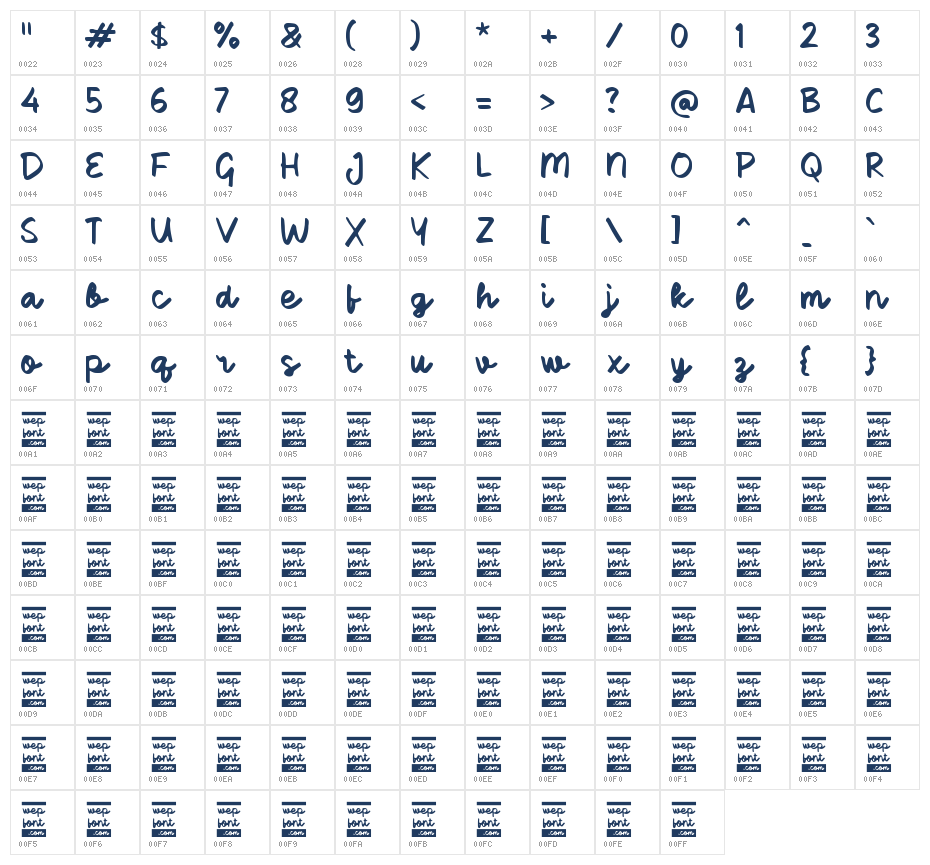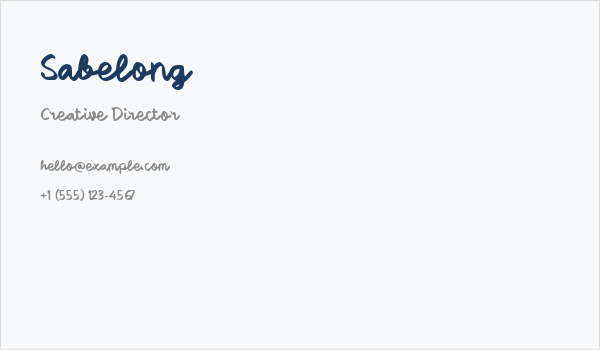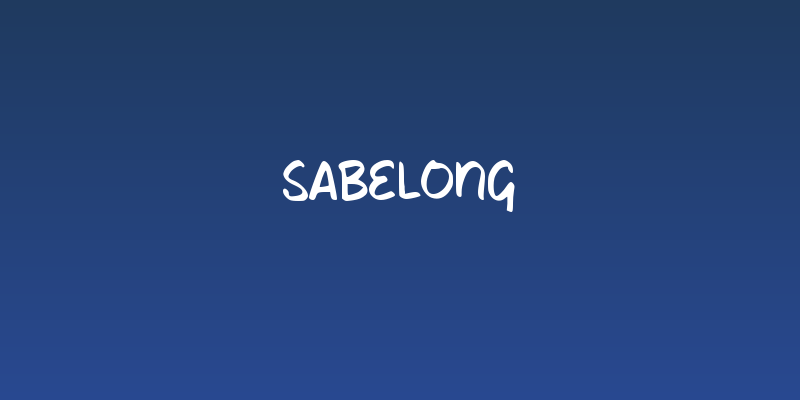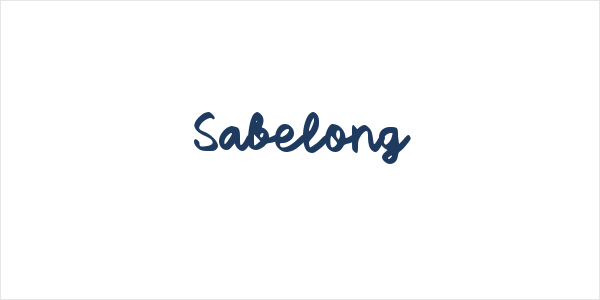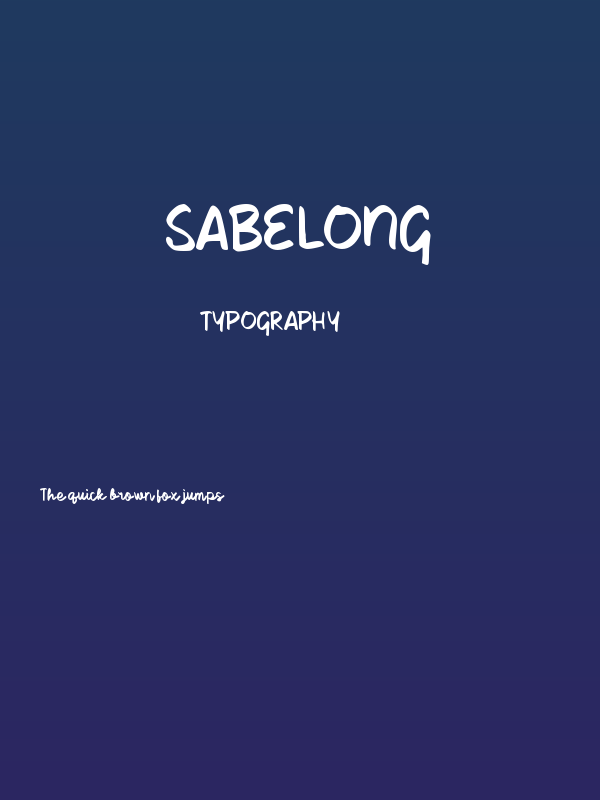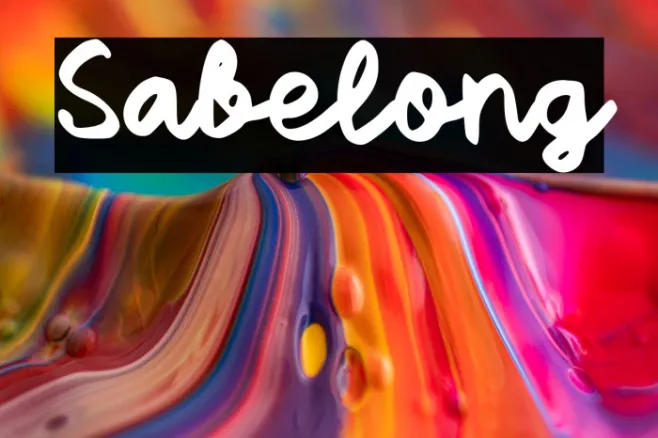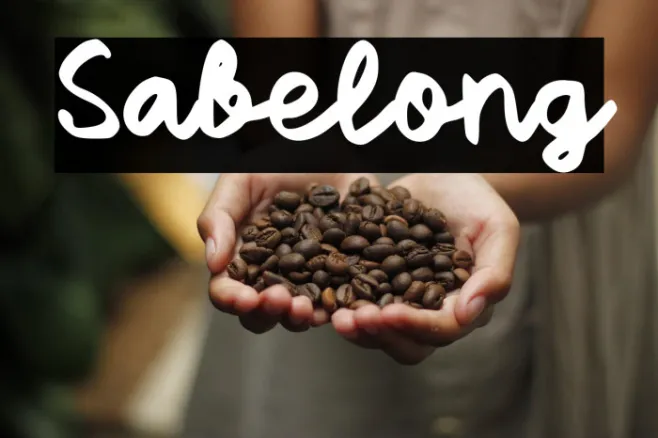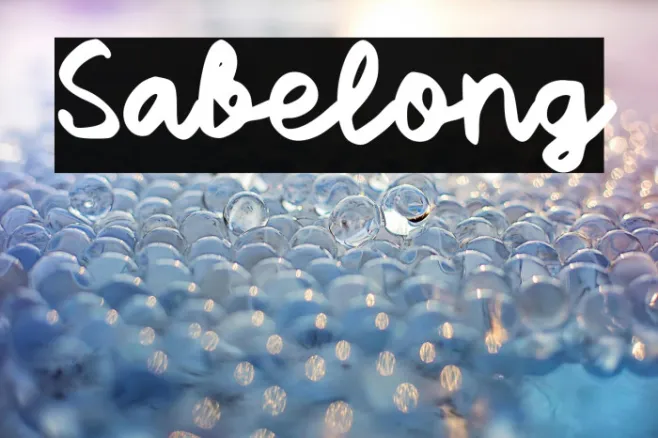
Sabelong Font
Sabelong Description
A playful, handwritten style font with rounded, casual letterforms.
| Overall Style | Casual, Friendly, Handwritten |